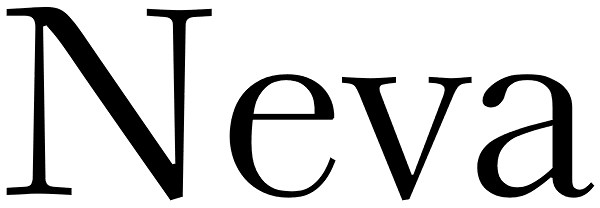
Neva
Neva Regular with Italic was created by Moscow book and type designer Pavel Kuzanyan (1901-1992) at Polygrafmash in 1970 for slugcasting and display composition. Based on simple strict letterforms of Russian classical typefaces. Neva typeface was...